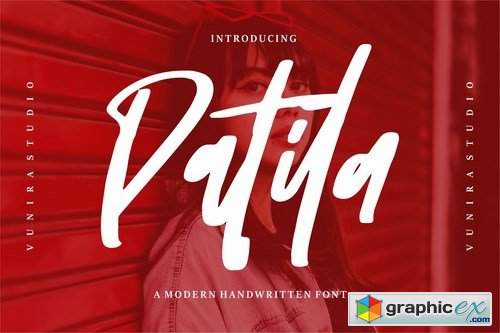
Patila A Modern Handwritten Font
Patila | A Modern Handwritten Font with a calligraphy style, So beautiful on invitation like greeting cards, branding materials, business cards, quotes, posters, and more!